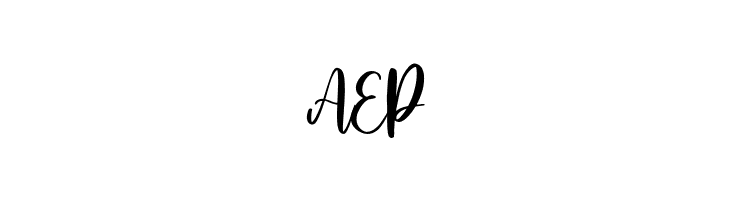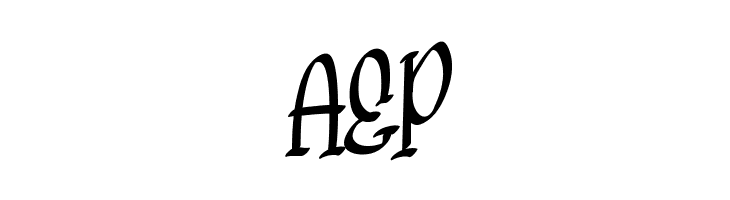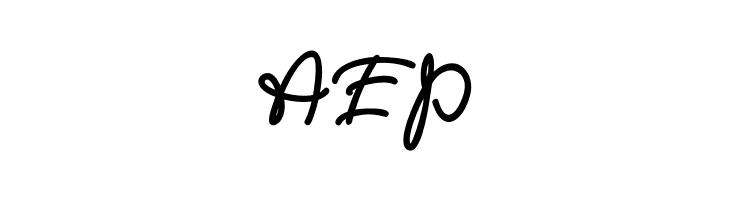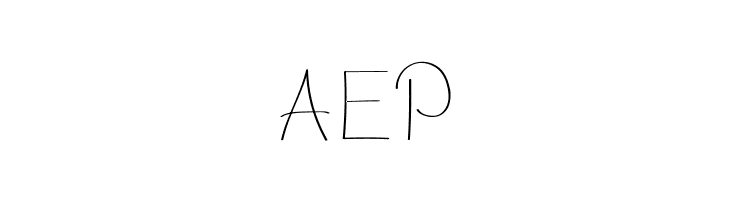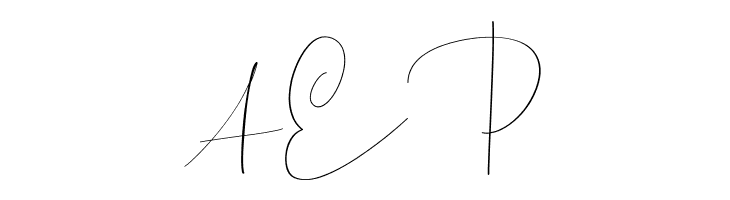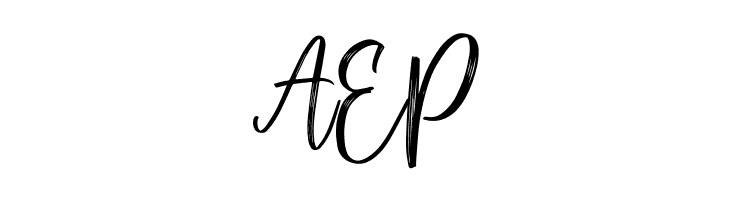
An elegant and flowing script font with ornate uppercase and smooth lowercase letters.
A graceful script font with flowing, cursive letters and consistent stroke width.
A playful, hand-drawn font with thin, uneven strokes and a whimsical style.
A flowing, cursive script font with elegant, connected letters.
A flowing, cursive script font with elegant loops and swashes.
A playful handwritten font with rounded edges and a casual style.
A dynamic dry brush font with expressive and energetic strokes.
A delicate and elegant script font with flowing, graceful strokes.
A bold, expressive font with a hand-drawn, dynamic style.